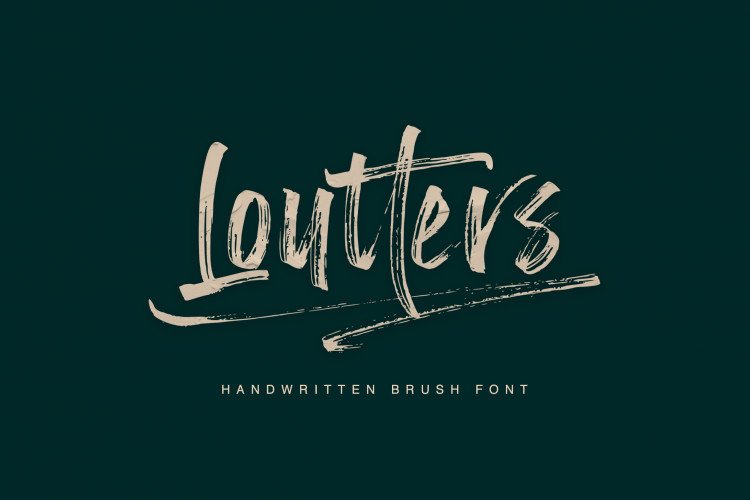
Loutters Brush Font
Loutters Brush Font – is script brush font with handwriting style. This font is specially created for those of you who need a touch of elegance to design your projects next with perfect results and amazing. It’s designed and shared by Letteratom. It’s a very prominent and eye catching handwriting. With a fast and textured sweep style, Loutters are very easy to use for a variety of design needs such as logos, brands, packaging, book titles, etc., and are suitable for use in any background image.